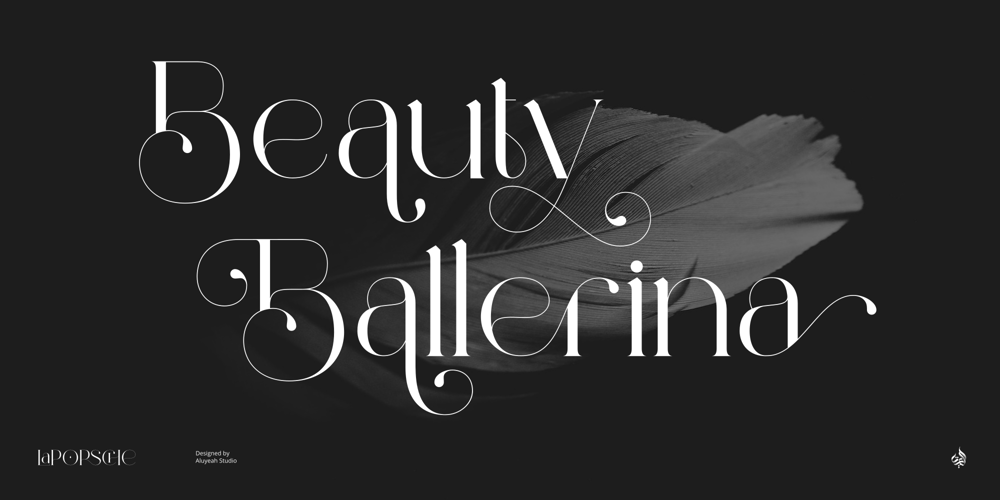
Al Beauty Ballerina
Al Beauty Ballerina font
Al Beauty Ballerina Font Family was designed by Linggar Sundoro and published by Aluyeah Studio. Al Beauty Ballerina contains 1 styles and family package options. Introducing Beauty Ballerina, the top choice for those looking for a typeface that exudes beauty and grace. Every exquisite detail of this typeface mirrors the strength, passion, and elegance innate to each ballerina, making it an embodiment of the beauty and grace that ballet dancers exude. Featuring an extensive collection of over 360+ quick-access ligatures and alternatives, it allows everyone to delve deeper into their imagination and reshape their creations with luxury.